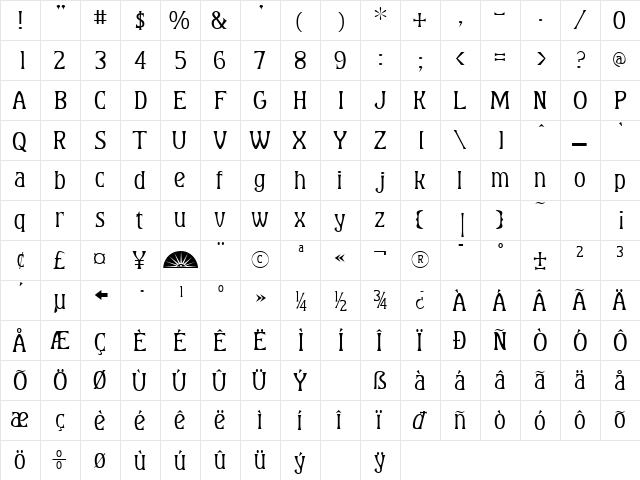
Baumfuss Regular
Design Context for Baumfuss Typeface
Baumfuss offers clean, dependable letterforms without strong stylistic allegiance, making it a practical choice for designers who need flexibility.